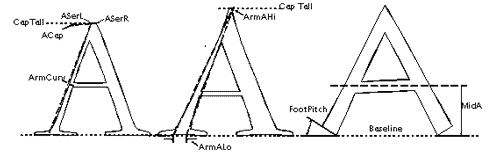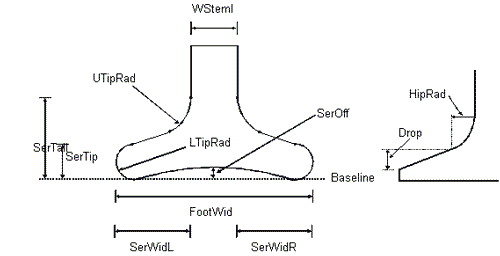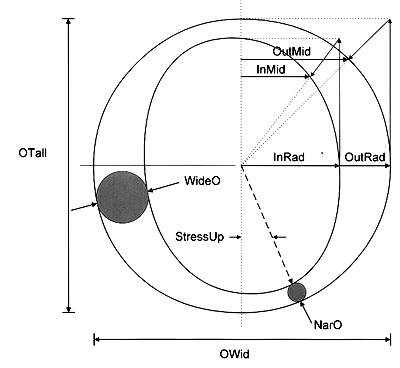
2.0 Latin Text
2.1 Family Kind
Sub-digits
0-Any
1-No Fit
2-Latin Text
3-Latin Hand Written
4-Latin Decorative
5-Latin Symbol
Description
The overall genre of the alphabet or script that is being described is signified by the Family Kind digit. This digit consists of two parts: the script kind identifier and the genre kind identifier. In this case, the script identifier is Latin, and the genre type is described as Text, Hand Written, Decorative or Symbol. Extensions of the PANOSE system to other families of writing forms (Kanji, Hebrew, Arabic, etc.) have not been defined at the time this revision was written; contact us for more information about the extensions that are currently available.
The Family Kind digit is not controlled by specific measurements, and there has been no attempt to mathematically determine the appropriate category for a given font design. Visual and aesthetic classification of Latin faces that are obviously script, decorative, or symbol fonts is required.
General classification method
To decide whether a font belongs to the Latin Text group follow the two step process below.
A. Answer the following three questions. If they are all yes, then it belongs in this group. If the answer is still ambiguous, go to step B.
-
Does the font belong to a family that includes italic versions? Most fonts in this group have a variety of weights and most include italic versions.
-
Are the characters in the font made up of standard topologies constructed of standard parts?
-
Is some portion of the font suitable for composing a paragraph of text?
B. As a final tie breaker, look at the second digit of the Decorative (Section 4) and Handwritten (Section 3) families and see if there is something in them that fits the font in question better.
2.2 Serif Style Classification
Sub-digits
0-Any
1-No Fit
2-Cove
3-Obtuse Cove
4-Square Cove
5-Obtuse Square Cove
6-Square
7-Thin
8-Oval
9-Exaggerated
10-Triangle
11-Normal Sans
12-Obtuse Sans
13-Perpendicular Sans
14-Flared
15-Rounded
Description
The most sophisticated digit in the PANOSE classification system is the Serif Style digit. This digit describes the appearance of the serifs used in a font design and groups them into one of fourteen general categories. Serif and sans serif faces are classified within this digit, though less description is given to the stem terminators of sans serif styles.
Measurements
The sixteen measurements required to fully classify a serif are designed to account for the wide variety of serif styles. Once the properties of the classification system have been learned, fewer critical measurements may be needed to verify the Serif Style digit. Except where noted all of the measurements should be made on characters of the same point size.
While most calculations made to determine the Serif Style digit are ratios, the measurement system used for determining these values must be consistent for all Serif Style digits. Ratios taken against the overall uppercase height, CapH, provide this consistency.
Measurements Taken on the Upper H
The most basic font measurements CapH, HWid and Slant are taken on the Upper H. These three variables define the basic character of the font.
Figure 2 - Upper H
CapH
CapH(Figure 2) is the cap height and it is measured on the uppercase H, from the top-most Y-extent to the bottom-most Y-extent along the theoretical midline of the left vertical stroke. The midline is chosen to avoid serifs that extend the height or depth of the character shape. This is a vertical measurement regardless of whether the character is italic or oblique.
Hwid
The HWid(Figure 2) is measured on the uppercase H, from the left theoretical stem edge of the left stem to the right theoretical stem edge of the right stem. It is taken along an imaginary line coincident with the average horizontal location of the character’s horizontal crossbar. The HWid measurement is used to determine Proportion.
Slant
The Slant (Figure 2) is measured up the center of the Upper H left vertical stem, with respect to the Baseline.
MidH
The MidH (Figure 2) may be used in place of MidE is out of character with the face. See Section 2.9 - Midline.
Measurements taken on the Serif
The shape and proportions of the serif define much of the character of a font. The following measures are grouped to reflect their relative importance. Often a face can be classified without resorting to the last groups.
Figure 3 - Serif Measurements
Universal serif measurements
SerTall
The height of the serif, or SerTall(Figure 3), is a vertical measurement taken on the lower left corner of the uppercase I, from the point that the serif departs from the vertical stem to the baseline. Note: The point of serif departure is obvious if printed samples are 300 dpi, but is less evident on high resolution output.
CutCountHi CutCountLo
The two CutCount (Figure 11)variables depict the number of corners at both terminations of the uppercase C. This measurement is only applied to serif letter forms and indicates the amount of serif detailing at the ends of the stroke. The procedure for this variable is loosely defined so as not to impede the simple goal of this attribute. Each surface of the detail at the termination of the C that is not a part of the major curve of the glyph is determined. From these surfaces the corners are counted and those counts determine the values for the CutCount variables. This process is completed for both the upper and lower termination of the uppercase C.
Figure 12 - Cut Pitch
CutPitch